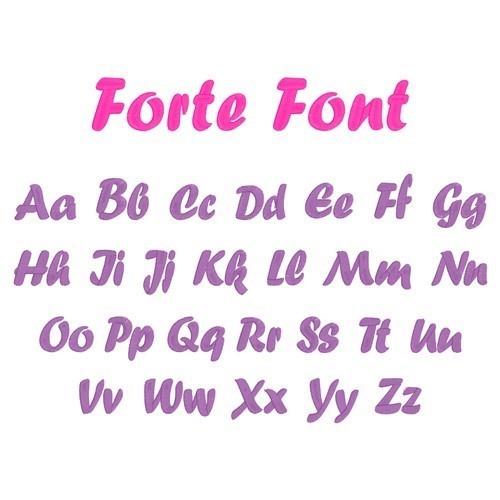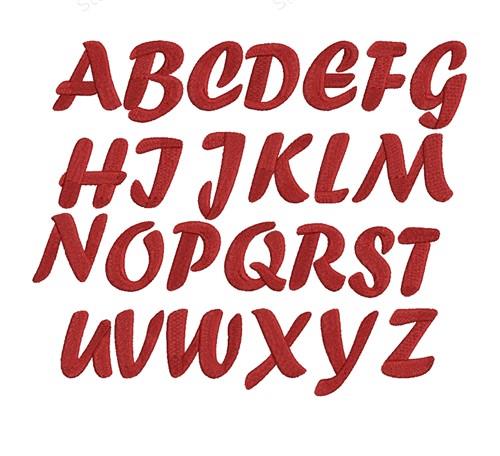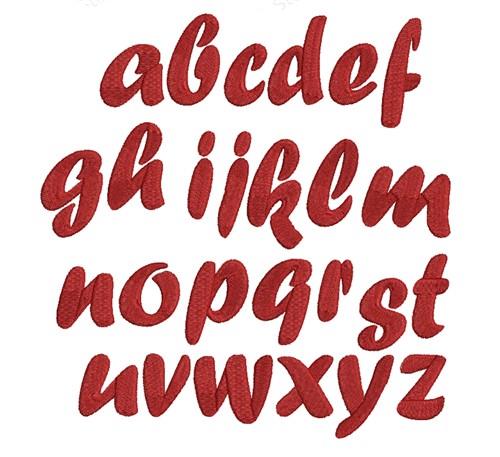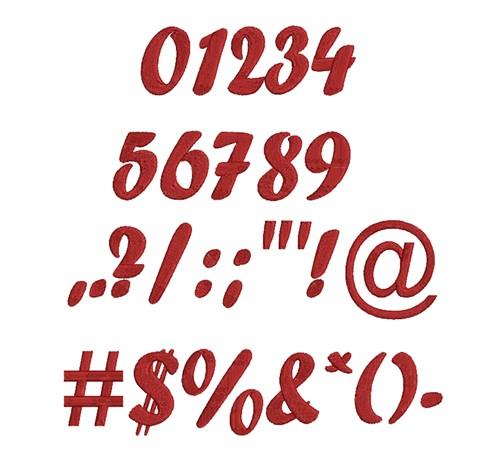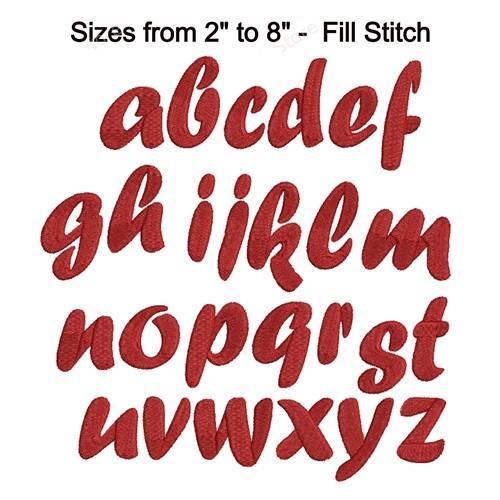
Maya Kreations is happy to present Forte Font Embroidery Font - Playful Script Letters - Home Format - PES, DST & 6 formats machine embroidery font which has Playful script machine embroidery font with fluid, curvy letters in bold red, ideal for casual décor on cushions and towels. Available in PES, DST, and other formats. included. If you would like to view more embroidery fonts and alphabets please search our embroidery fonts page.